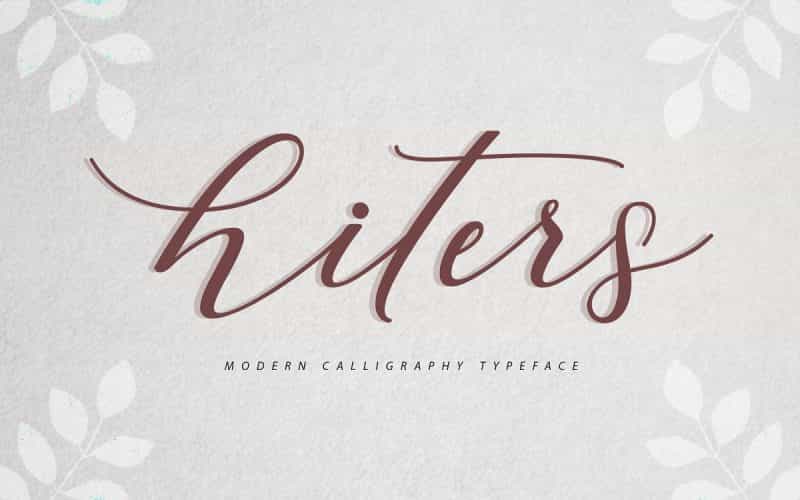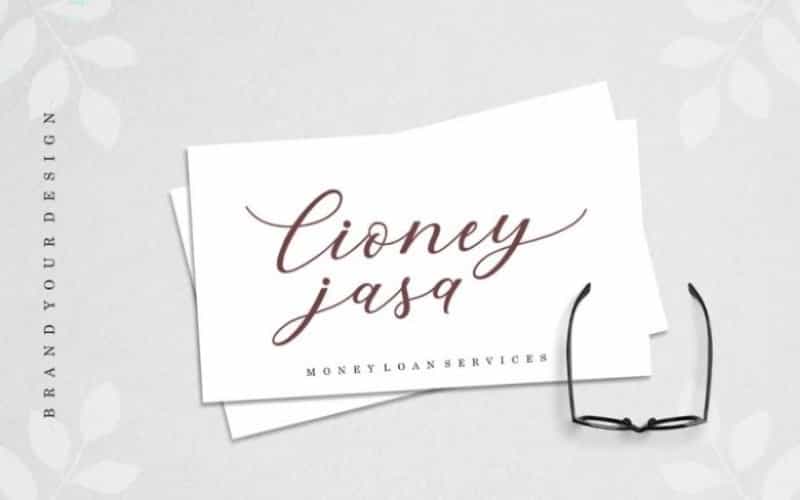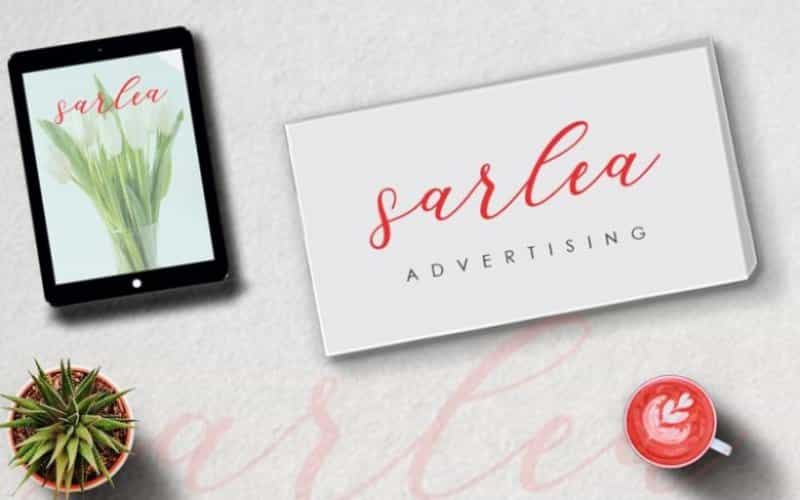
The Hiters Font is a modern calligraphy typeface which has recently been introduced. It is created and distributed by Musafir LAB. Hiters Script – each letter has been meticulously designed to make your text look very nice with an elongated connection model.